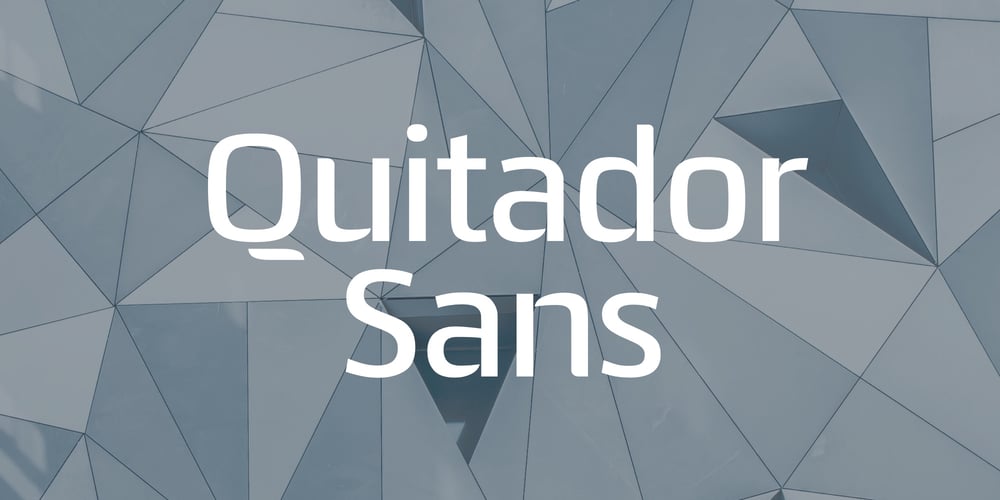
Quitador Sans Font Family was designed by Arne Freytag and published by Linotype. Quitador Sans contains 14 styles and family package options. The Quitadorâ„¢ Sans family is a fresh and distinctive design with roots that go back to the original Quitador typeface. Like its slab serif relative, the Quitador Sans suite of typefaces is large with several weights of roman and italic designs, making it an excellent choice for a wide variety of print and on-screen projects.